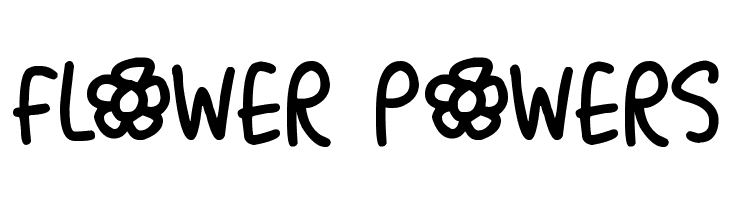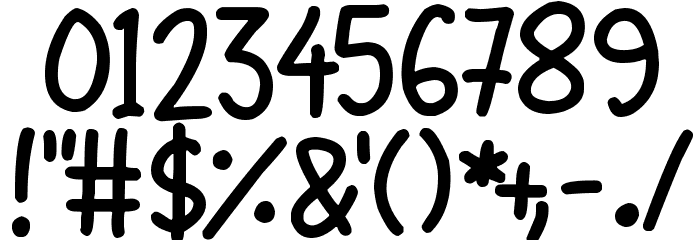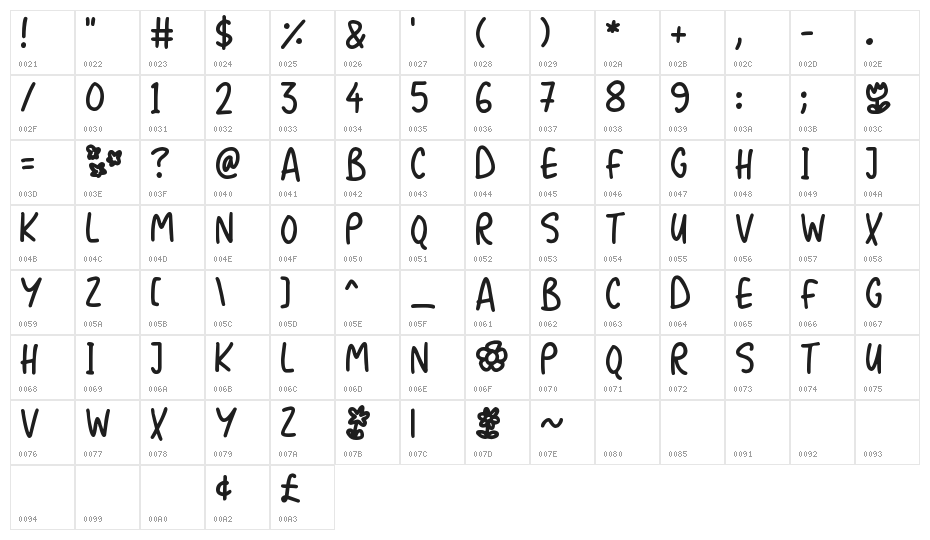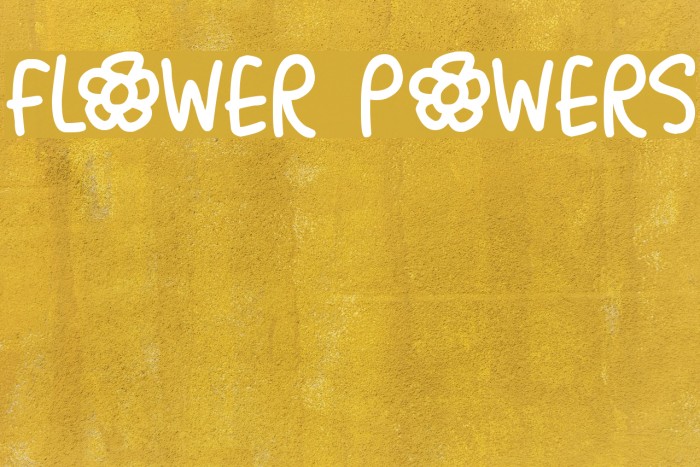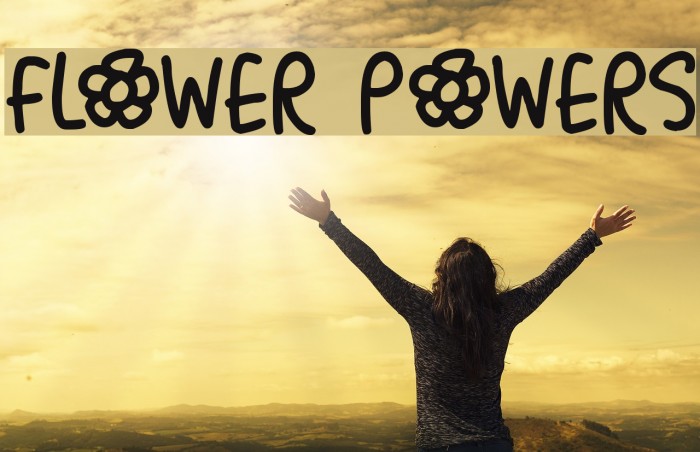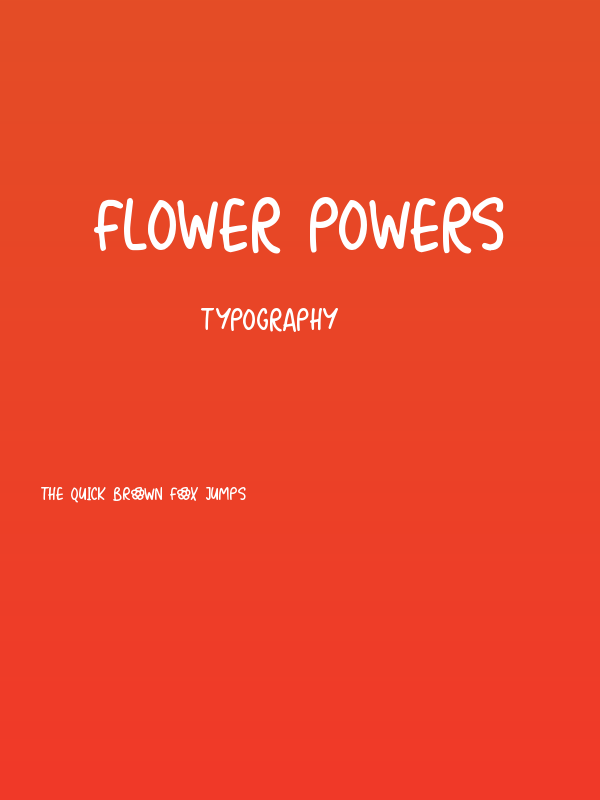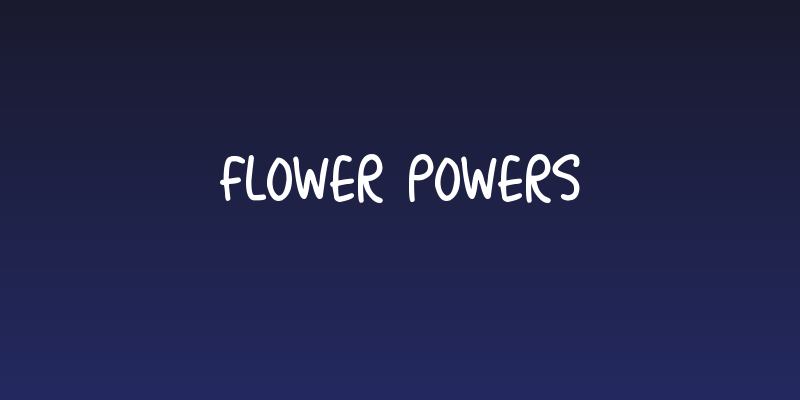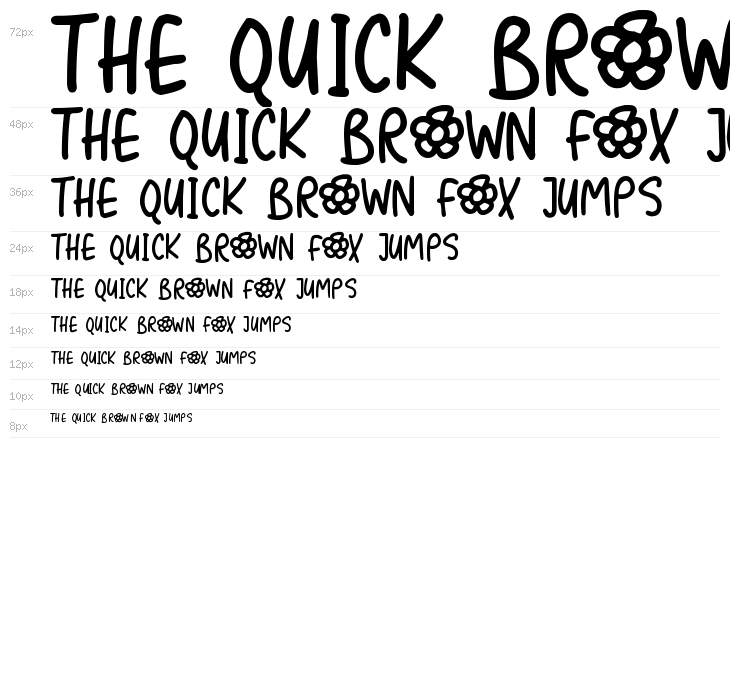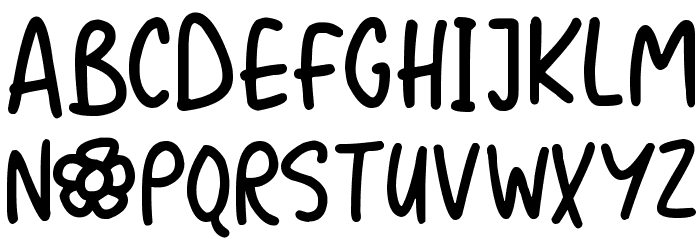
Flower Powers Font
Flower Powers Description
This playful and whimsical font features rounded, bold characters with a hand-drawn appearance. The letters are slightly irregular, adding a casual and friendly vibe. The font includes both uppercase and lowercase letters, numbers, and a variety of special characters. Its unique style is accentuated by the inclusion of a flower symbol in place of the letter 'O' in one instance, adding a touch of creativity and fun. The overall design is approachable and lively, making it suitable for projects that aim to convey a sense of joy and informality.